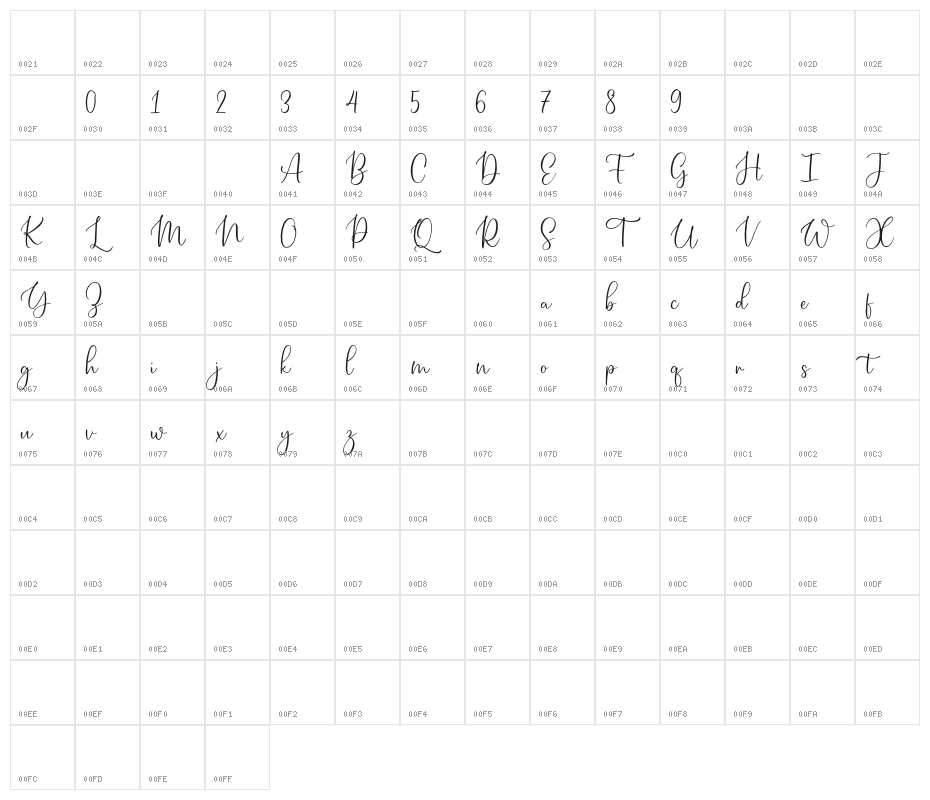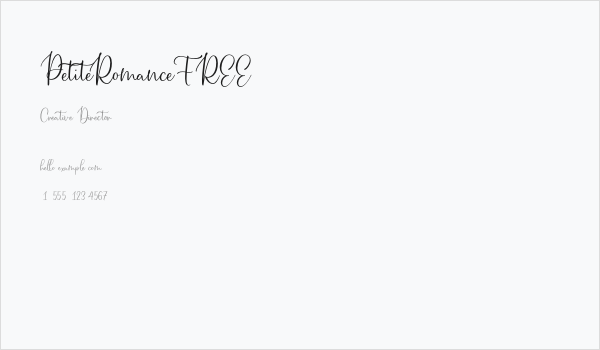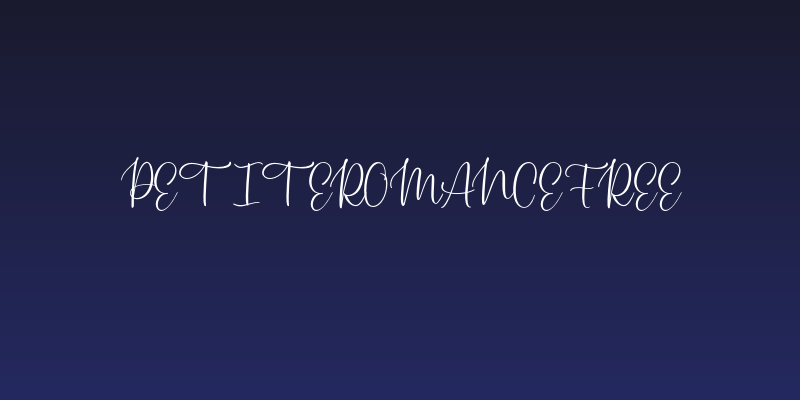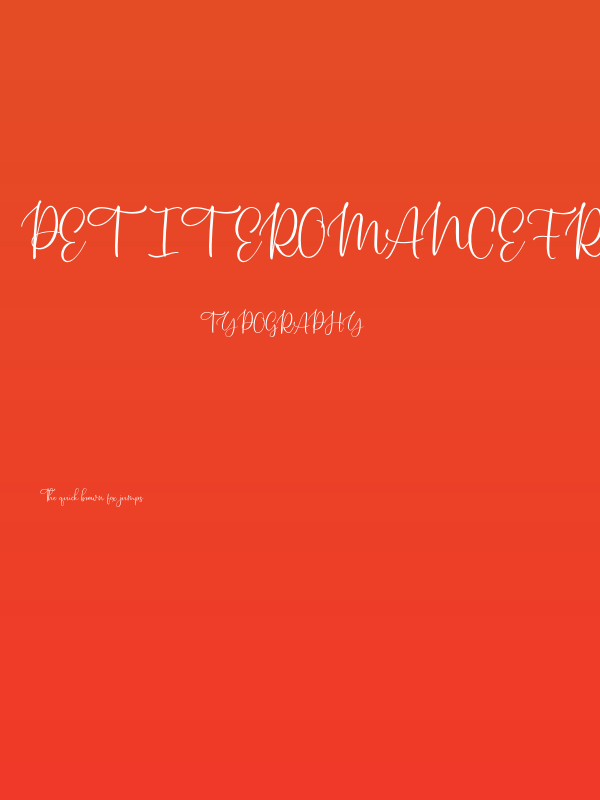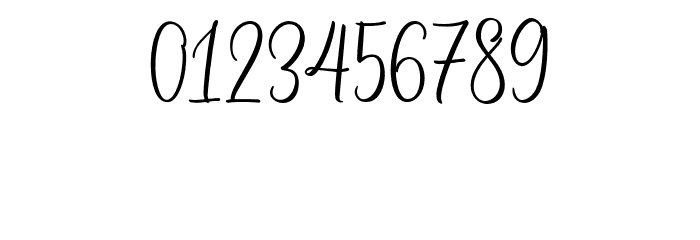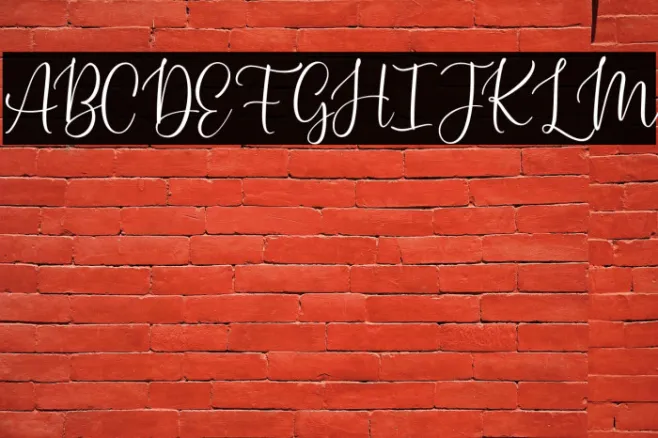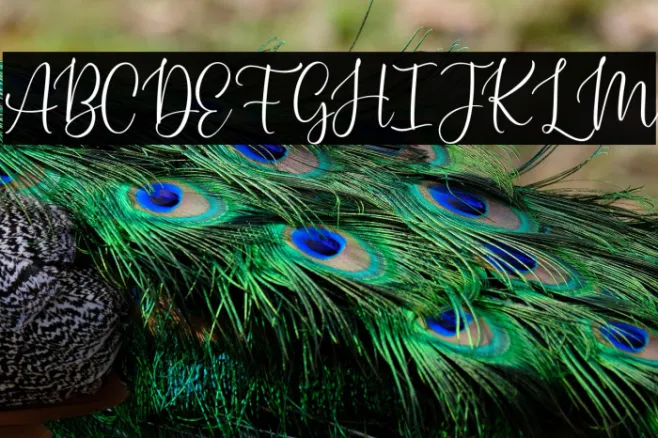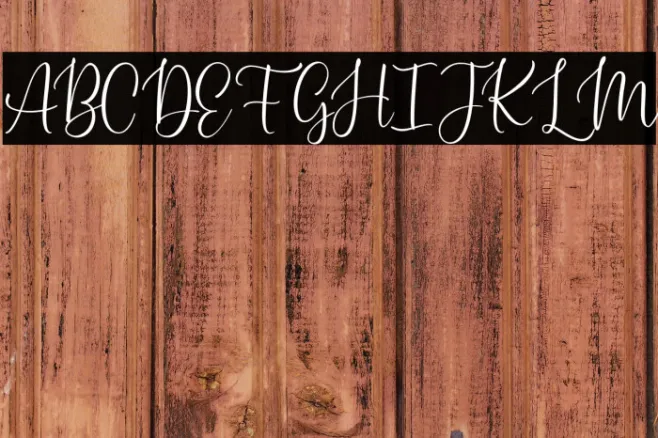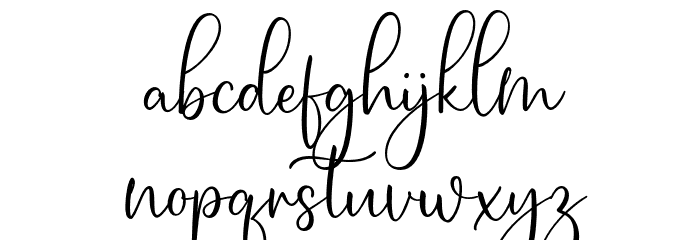
PetiteRomanceFREE Font
PetiteRomanceFREE Description
This elegant script font features a flowing, cursive style with a modern twist. The uppercase letters are tall and graceful, with sweeping curves and delicate loops that give a sense of movement and fluidity. The lowercase letters maintain a consistent style, with rounded forms and smooth connections between characters. The numerals are clear and legible, matching the overall aesthetic with their slightly elongated forms. This font exudes a sense of romance and sophistication, making it ideal for projects that require a touch of elegance.